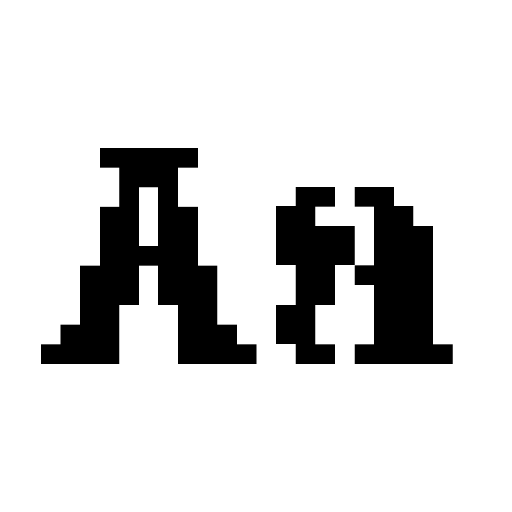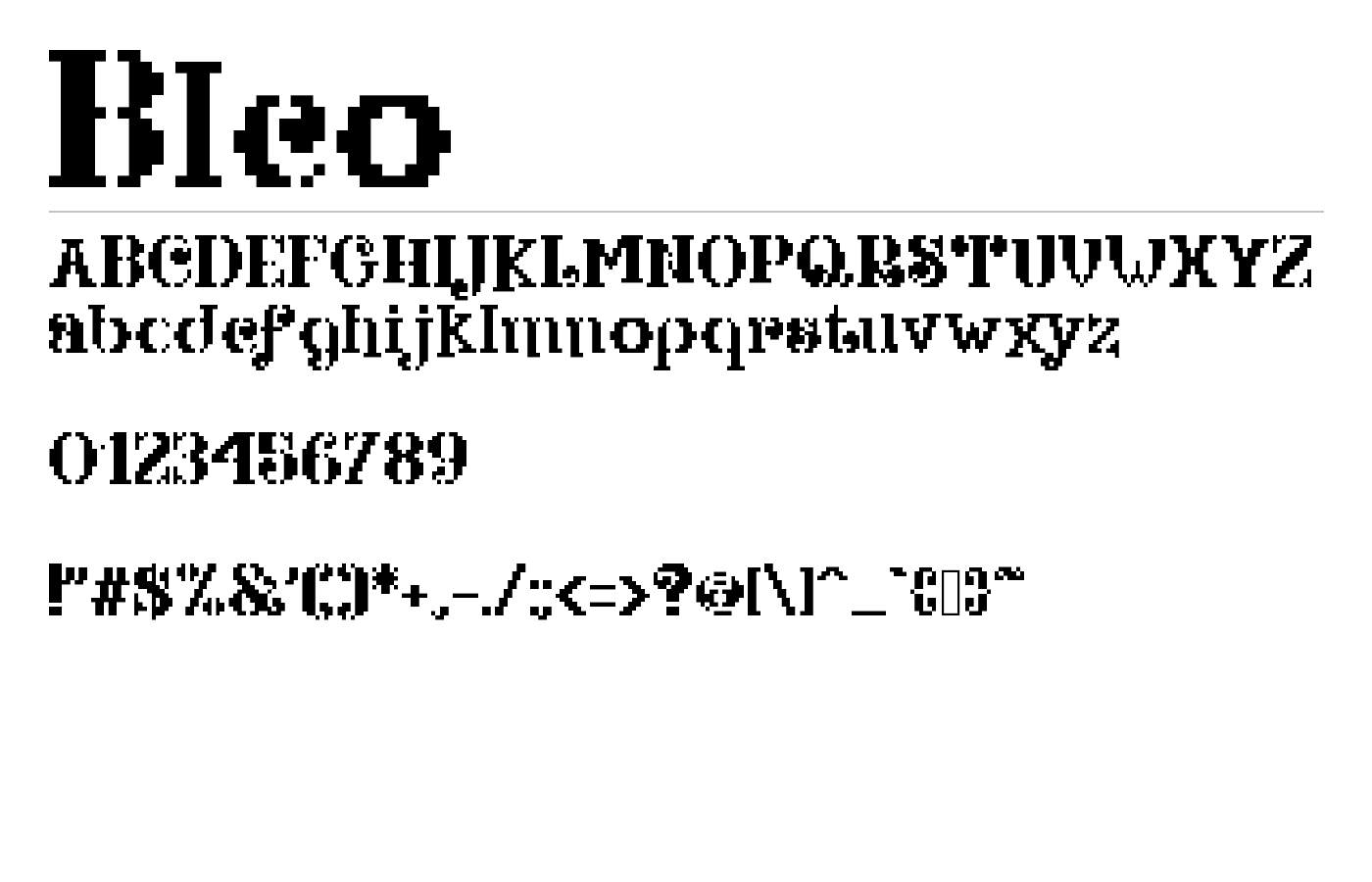
Bleo is a bold slab serif font with a vintage, pixelated texture that gives it a distinctive retro digital feel. Its heavy weight and sturdy serifs combine with a high contrast between thick and thin strokes, making it ideal for eye-catching headlines, logos, and designs that seek a blend of classic elegance and old-school computer graphics. This font works best in creative branding and display uses where a strong, nostalgic, yet modern personality is desired.
Bleo Font
About Bleo Font